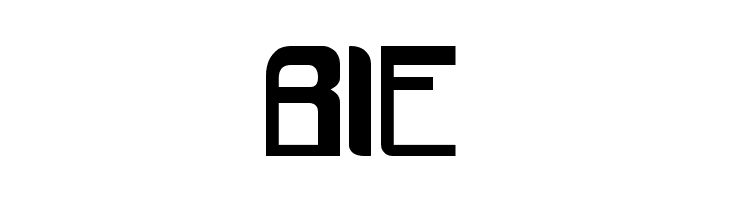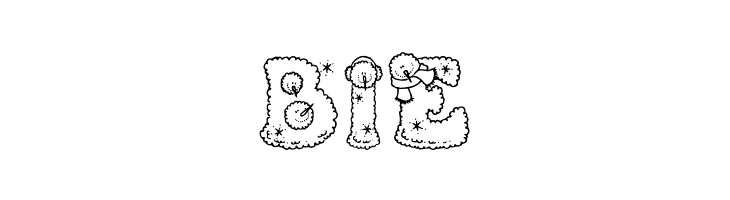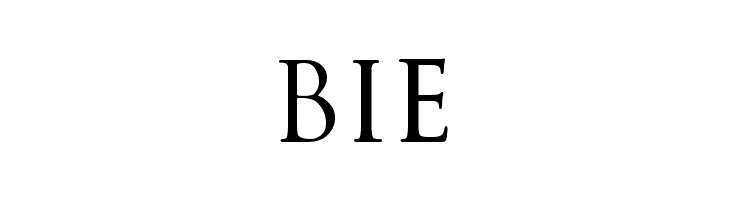
A whimsical, snow-themed decorative font with intricate details.
A bold, distressed font with a grunge texture, perfect for edgy designs.
A classic serif font with elegant, tapered strokes and a refined appearance.
A bold, futuristic font with geometric and angular letterforms.
A futuristic, alien-inspired font with bold, abstract letterforms.
A classic Blackletter font with ornate, gothic letterforms.
A modern, geometric sans-serif font with a sleek and minimalistic design.